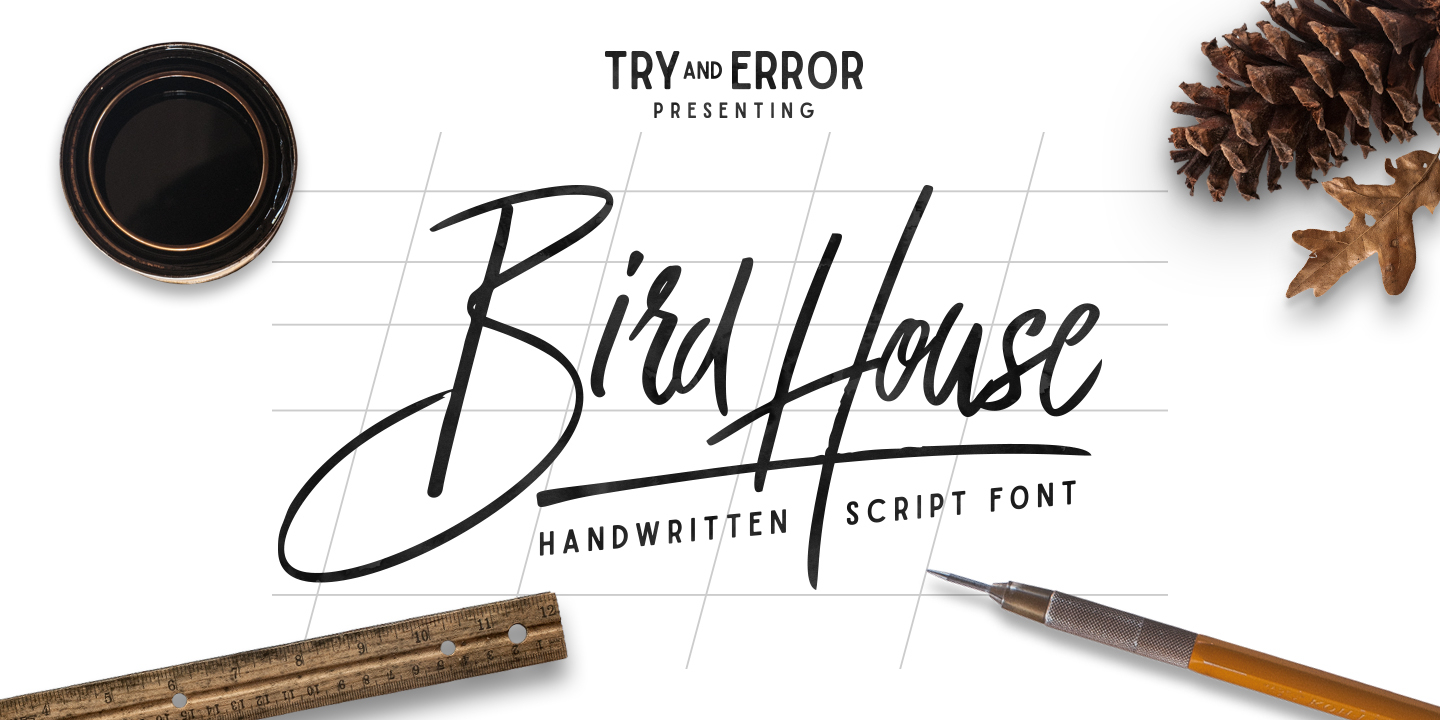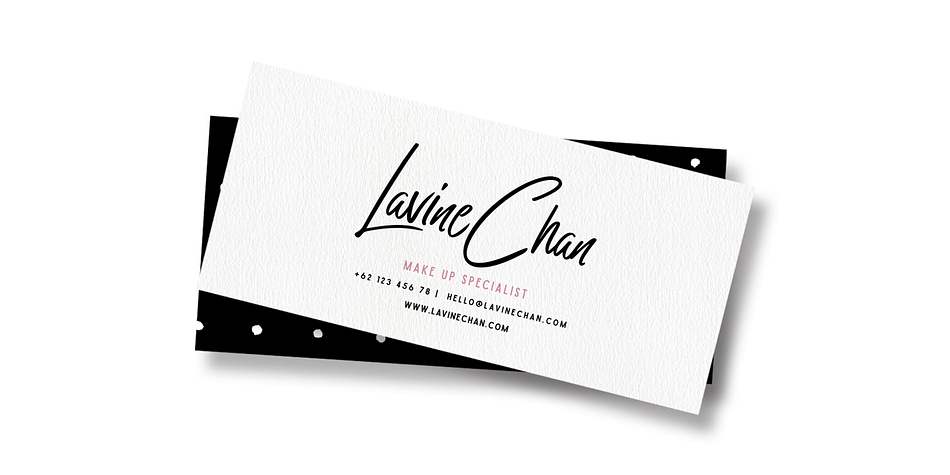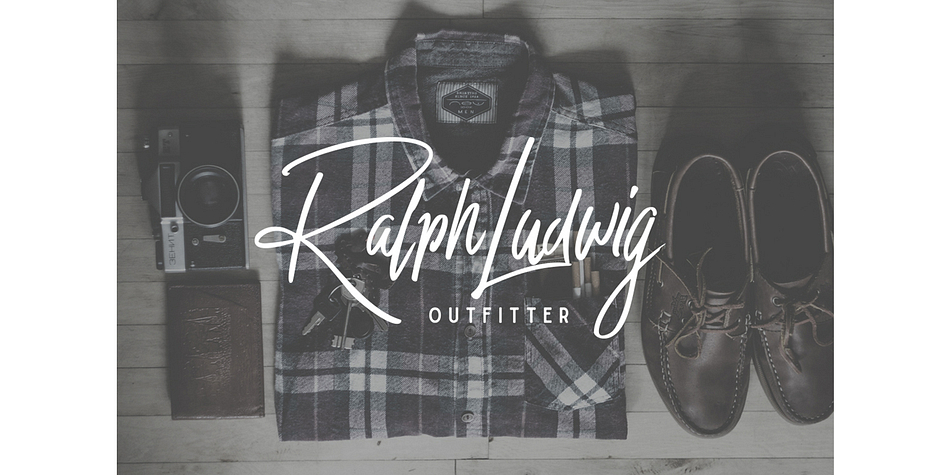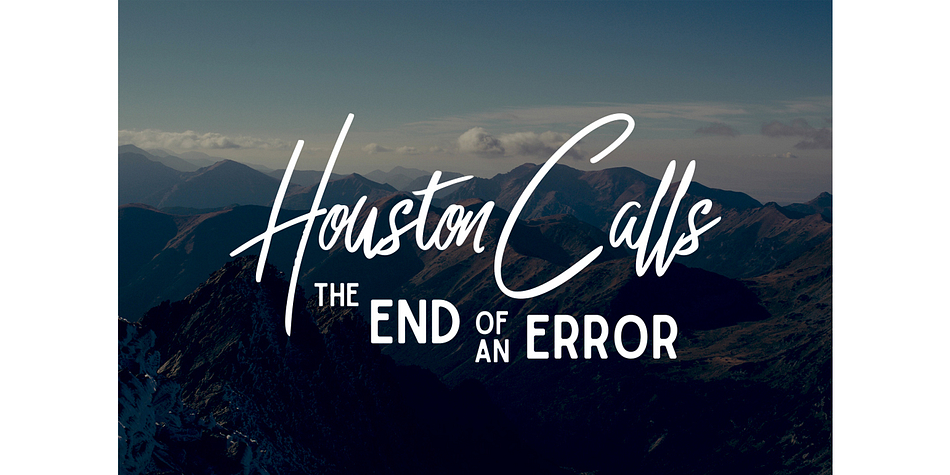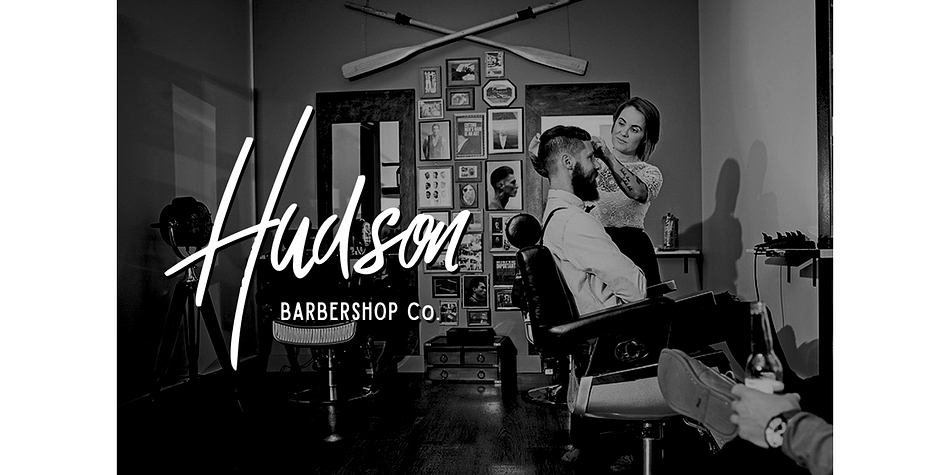
Designed by Angga Mahardika, Bird House Script is a script font published by Try&Error Studio.
Bird House Script is a handwritten font designed using markers. This font perfect for branding, signature, and more. It includes uppercase standard character, punctuation and multiple language support.